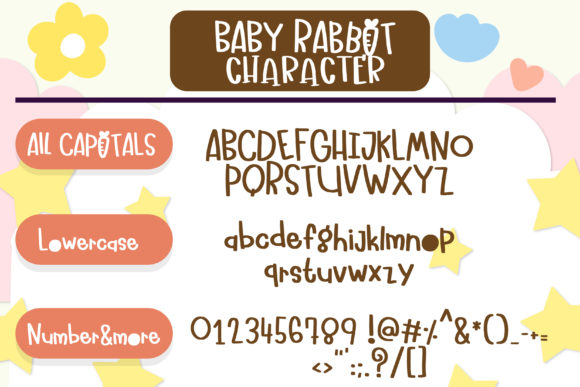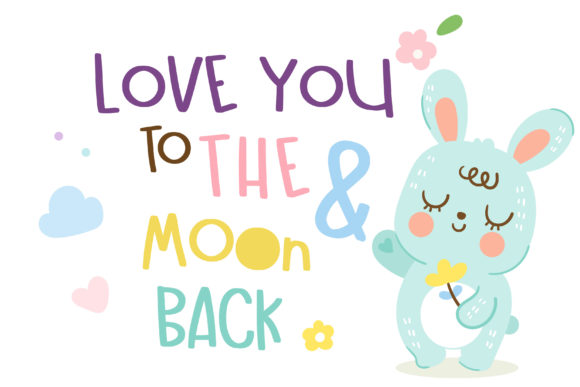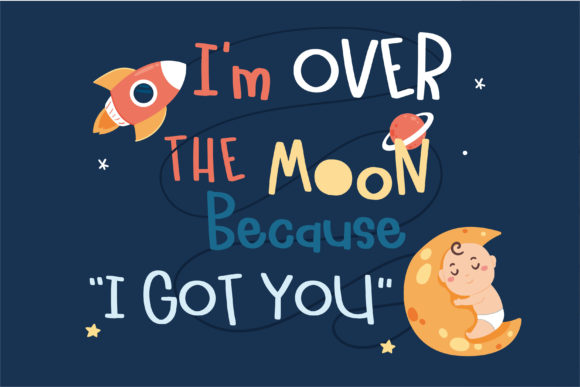
Baby Rabbit Kid is a cute and simple lettered handwritten font that can be used for all chalkboard quotes or teaching material.
Its authentic look will add a personal and realistic feel to your designs Baby Rabbit Kid is PUA encoded which means you can access all of the glyphs and swashes with ease.
Baby Rabbit Kid Font offers exceptional quality and versatility, making it a valuable addition to your design toolkit. Whether you’re creating for personal projects or commercial use, Baby Rabbit Kid Font delivers professional results.